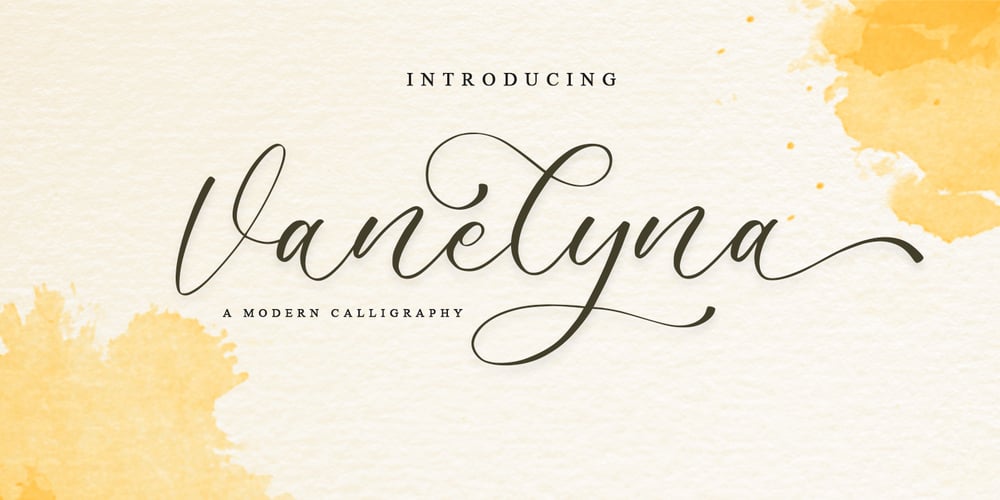
Vanelyna
Vanelyna font
Vanelyna Font Family was designed by Novia Himatunnisa and published by Nissa Nana. Vanelyna contains 1 styles and family package options. Vanelyna is a delicate and elegant handwritten font. Its distinct and well balanced letters make this font a masterpiece.